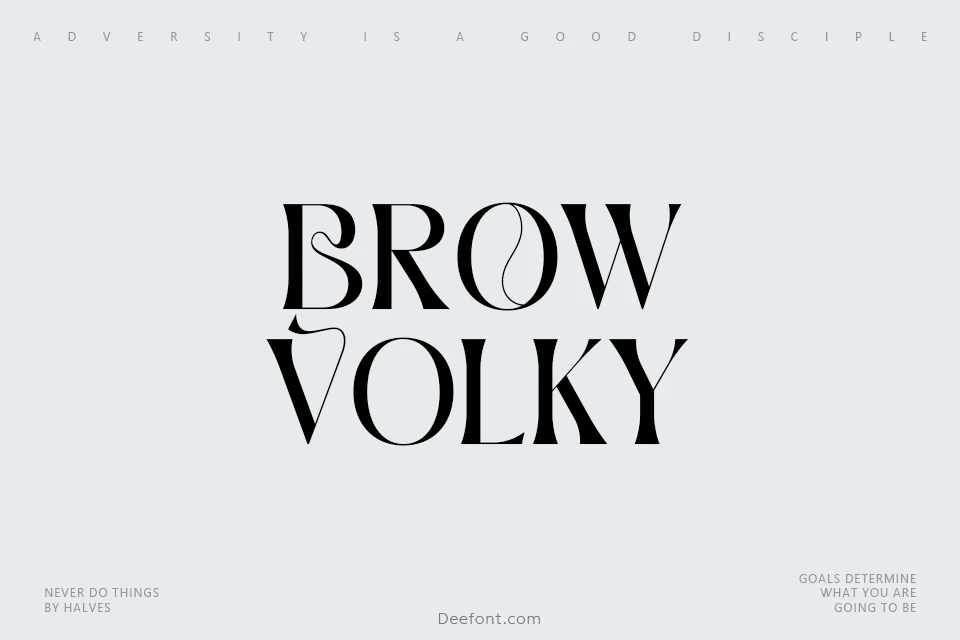
Brow Volky Font
Brow Volky Font is a modern and elegant serif typeface designed by Storytype Studio. With its unique and stylish look, this font is perfect for luxury logos, book or movie titles, fashion branding, magazines, apparel, lettering, and quotes. It features OpenType capabilities, including ligatures, numbers, punctuation, and multilingual support, making it a versatile choice for both classic and contemporary design projects.